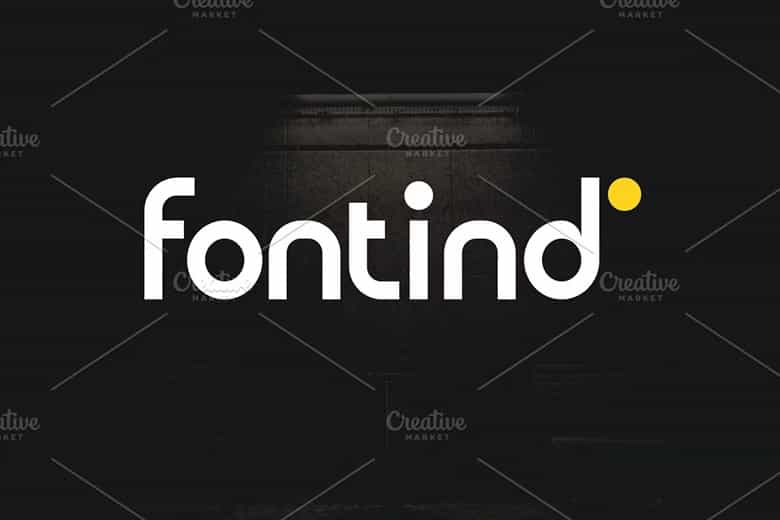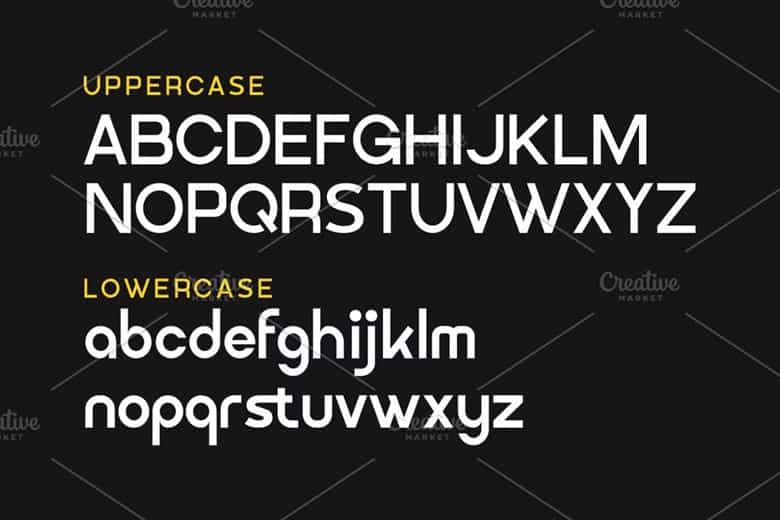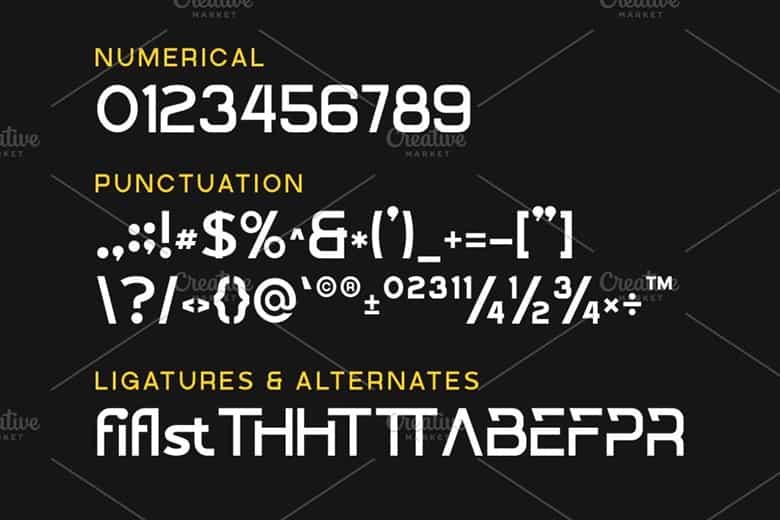
Fontind is an innovative sans serif typeface that Iwan Alwan has created with an unconventional approach to every single letter. Perfect for today’s branding, logos, and editorial design, Fontind brings the fresh and unique feel to any project. It also features multilingual support together with ligatures, and alternates.